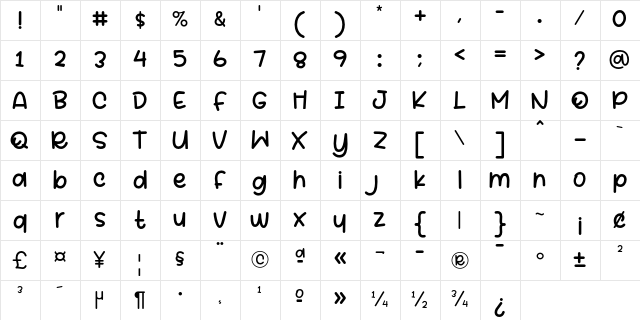
Beelova Regular
| Foundry | 7NTypes |
| Designer | Keithzo; Situjuh Nazara |
Design Context for Beelova Typeface
Beelova takes a measured approach to typography — its balanced proportions and neutral character make it a reliable workhorse for both digital and print work.